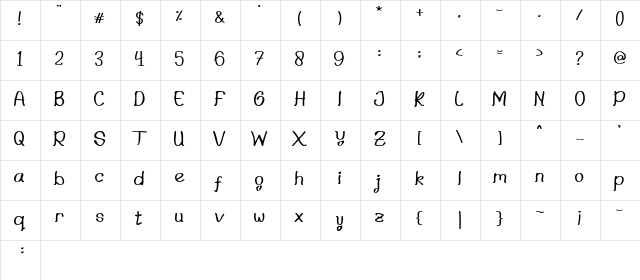
Jellycious Regular
Design Context for Jellycious Typeface
Jellycious is a composed and adaptable typeface that performs quietly and consistently across a wide range of design contexts.